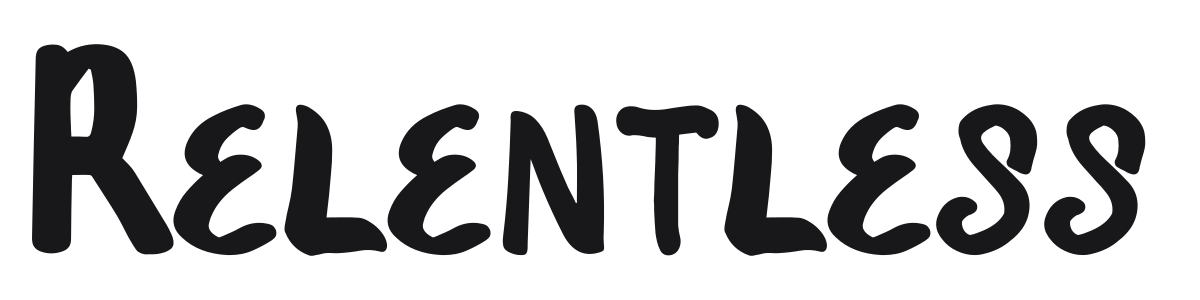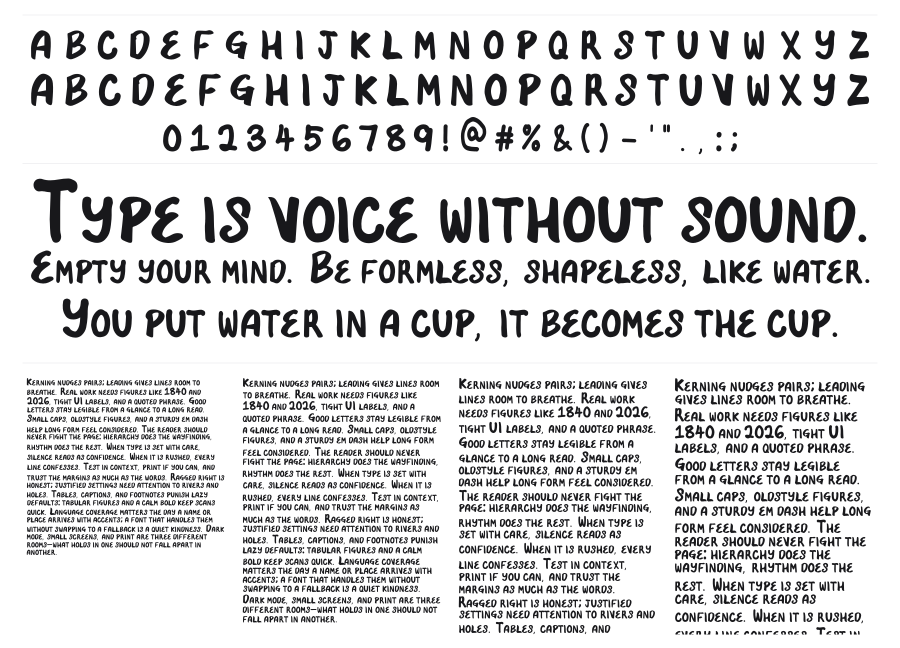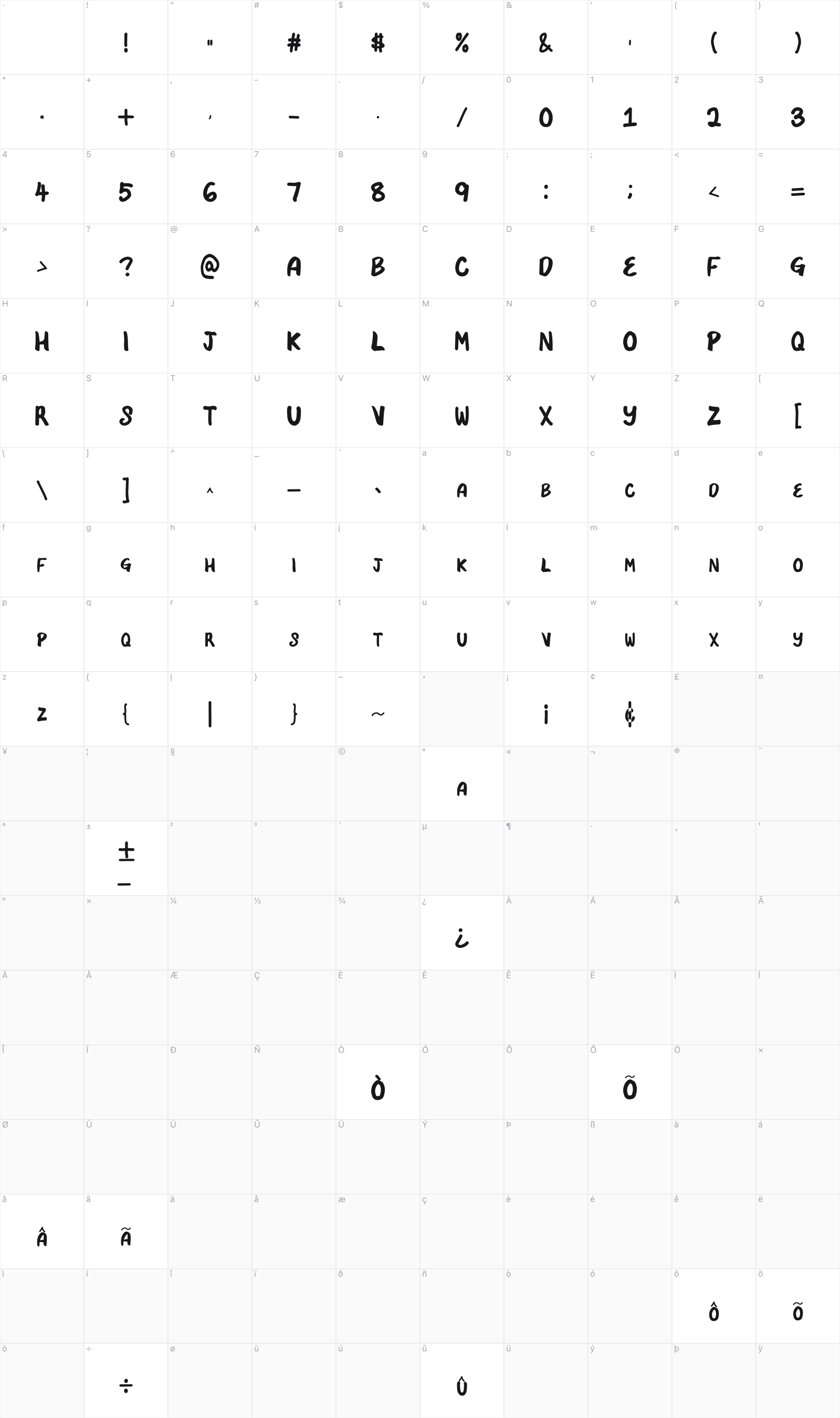
Relentless
by Roselle P'ng
Relentless is a bold, hand-drawn casual script with chunky rounded strokes and a loose, spontaneous energy. Each character has just enough irregularity to feel genuinely handcrafted rather than mechanical. Strong at poster sizes, in packaging, or anywhere a design needs raw, unpretentious personality.